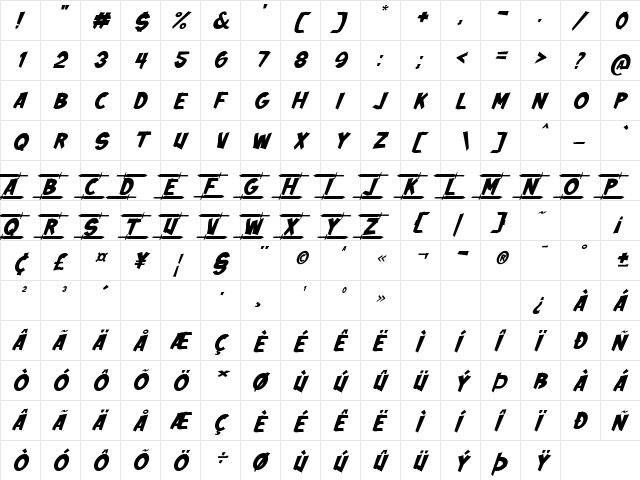
Thorn Blade Italic Regular
Design Context for Thorn Blade Italic Typeface
Thorn Blade Italic offers clean, dependable letterforms without strong stylistic allegiance, making it a practical choice for designers who need flexibility. The dynamic lean of this cut emphasises speed and emphasis in any layout.
Pro Tip: Try Thorn Blade Italic for annotation and caption copy alongside an upright companion — the contrast in angle creates a dynamic but ordered typographic system.